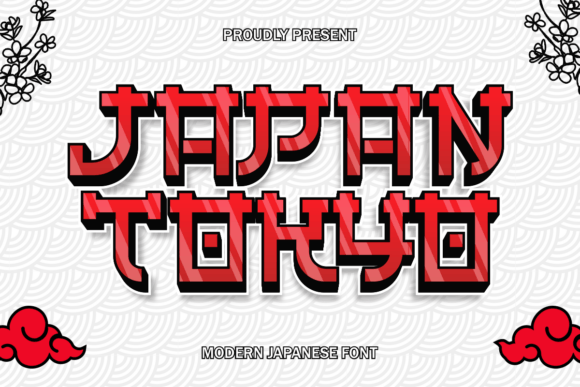
Discover the Elegance of Japan Tokyo Font: A Perfect Blend of Modernity and Tradition
In the realm of typography, fonts play a crucial role in conveying the essence and aesthetic of a brand, design, or artwork. Among the myriad of fonts available, the Japan Tokyo Font stands out for its unique blend of modern style and traditional Japanese influences. This font is not just a typographical choice; it’s an experience that brings an authentic Japanese flair to your creative projects. Whether you’re working on branding, logos, posters, or digital projects, the Japan Tokyo Font is an excellent choice for those seeking a sleek, minimalist design with a contemporary touch.
What is Japan Tokyo Font?
Japan Tokyo Font is a thoughtfully designed typeface that captures the essence of Tokyo’s vibrant culture and the timeless beauty of Japanese traditions. This font is meticulously crafted to offer a clean and minimalist look, making it versatile for various applications. From modern branding and sleek logos to captivating posters and engaging digital projects, the Japan Tokyo Font brings a distinctive character that sets your work apart.
Key Features of Japan Tokyo Font
- Modern Style with Traditional Influences: The Japan Tokyo Font seamlessly blends contemporary design elements with traditional Japanese aesthetics. This fusion results in a unique and captivating visual appeal that can elevate any creative project.
- Sleek and Minimalist Design: Characterized by its clean lines and simple structure, this font exudes elegance and sophistication. Its minimalist design ensures that your message is conveyed clearly and effectively, without any distractions.
- Authentic Japanese Flair: For designers looking to infuse their work with an authentic Japanese touch, this font is an invaluable resource. It captures the spirit of Japan’s rich cultural heritage and brings it into the modern design landscape.
Applications of Japan Tokyo Font
The versatility of the Japan Tokyo Font makes it suitable for a wide range of applications. Here are some of the most popular uses:
- Branding: Establish a strong brand identity with a font that communicates elegance, modernity, and a touch of tradition.
- Logos: Create memorable logos that stand out with the Japan Tokyo Font’s unique and stylish characters.
- Posters: Whether you’re designing posters for events, advertisements, or informational purposes, this font can add a sophisticated and eye-catching appeal.
- Digital Projects: Enhance your digital content, such as websites, apps, and social media graphics, with a font that offers both aesthetic appeal and readability.
Tips for Using Japan Tokyo Font Effectively
The Japan Tokyo Font is a remarkable typeface that offers a perfect blend of modern style and traditional Japanese influences. Its sleek, minimalist design, combined with the authenticity of Japanese aesthetics, makes it an ideal choice for a wide range of creative projects. Whether you’re a designer looking to add an elegant touch to your work or a brand aiming to establish a unique identity, the Japan Tokyo Font is a valuable resource. With its ease of use, thanks to PUA encoding, and its versatility across various applications, this font is sure to inspire and elevate your creative endeavors.
Future of Typography: Japan Tokyo Font and Beyond
The Japan Tokyo Font represents a step forward in the evolution of typography, where modern design principles meet traditional cultural elements. As the world of design continues to evolve, we can expect to see more fonts that blend different styles and influences. For now, the Japan Tokyo Font stands as a testament to the power of typography in bridging cultures and aesthetics, offering a tool for designers to create works that are not only visually stunning but also rich in cultural significance.